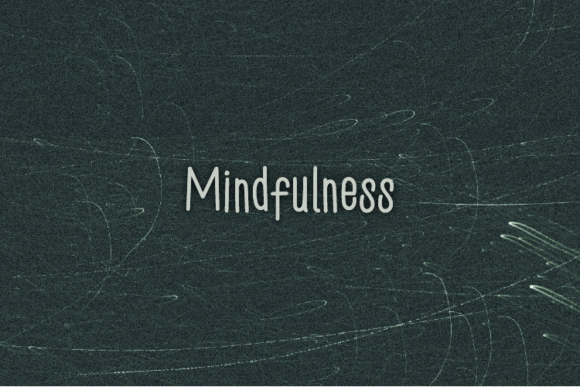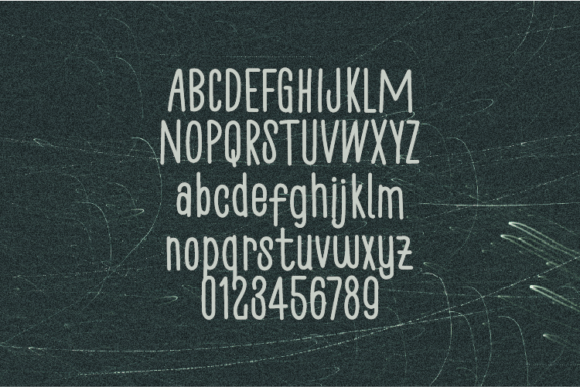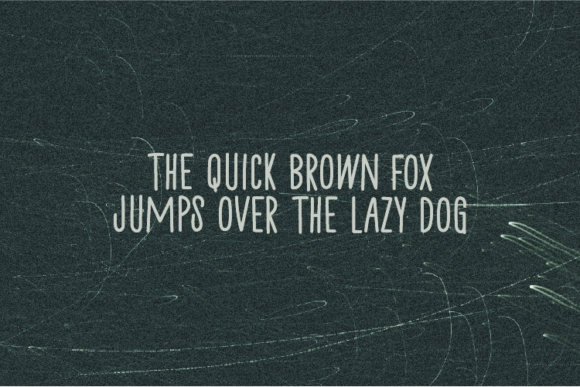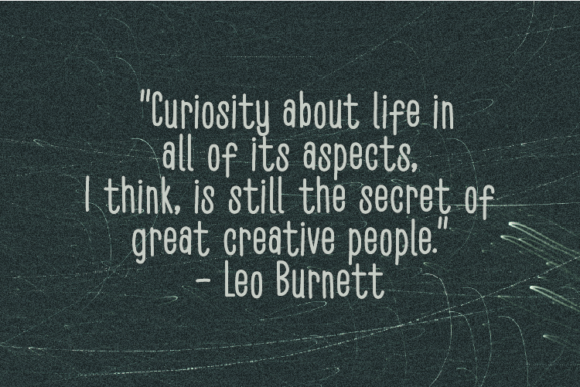
Mindfulness Font
About Mindfulness Font
“Mindfulness” is a natural and casually handwritten font that brings a sense of authenticity and informality to your designs. With its versatile and approachable style, this font serves as a valuable asset to your font library, as it has the potential to enhance a wide variety of creative creations, regardless of the topic or theme.
The charm of “Mindfulness” lies in its ability to convey a sense of spontaneity and naturalness. The font’s handwritten appearance creates a warm and genuine aesthetic that can complement a variety of design concepts.
One of the standout features of “Mindfulness” is its versatility. It can easily adapt to different design themes and moods, making it suitable for various applications. Whether you’re aiming for a relaxed and friendly look or a more formal and structured style, “Mindfulness” is a font that can deliver.
When you incorporate “Mindfulness” into your designs, you can expect your projects to exude a sense of authenticity and approachability. This font has the power to create a memorable and engaging visual experience for your audience, making it a valuable asset for your creative endeavors.
In summary, “Mindfulness” is not just a font; it’s a design asset that can enhance your creative projects with its natural and casual appeal. Its versatility makes it a valuable addition to your design toolkit. Feel confident in using “Mindfulness” to enhance any creation, as it has the potential to bring an authentic and inviting touch to your designs!